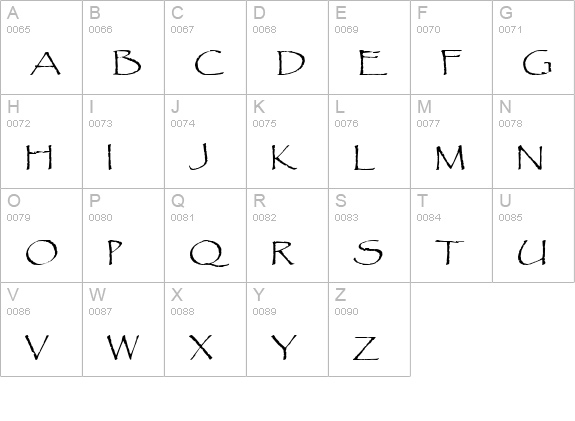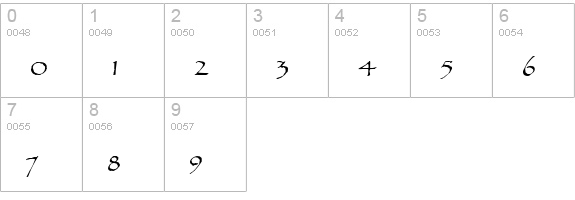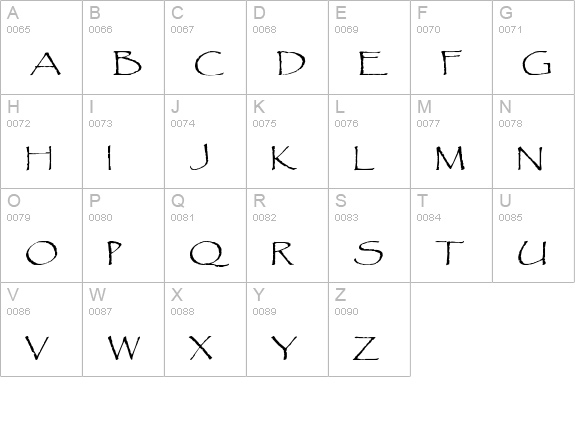
Chalk-Extended Normal Font Details
Chalk-Extended Normal is the standard, neutral, extended-width variant in the Chalk typeface family \xE2\x80\x94 well suited to general body text, paragraphs, and standard typographic work.
Chalk-Extended Normal font is a versatile and stylish typeface that brings a modern twist to the classic chalkboard aesthetic. Its clean lines and extended proportions make it perfect for a wide range of design projects, from posters to branding to social media graphics. The bold yet approachable look of Chalk-Extended Normal font adds a playful touch to any design, making it ideal for capturing attention and conveying a sense of creativity. Best of all, Chalk-Extended Normal font is available for free download at FontsMarket.com. This means you can start using this eye-catching font in your projects right away, without any additional cost. Don't miss out on the opportunity to enhance your designs with the unique charm of Chalk-Extended Normal font - download it today and let your creativity shine!